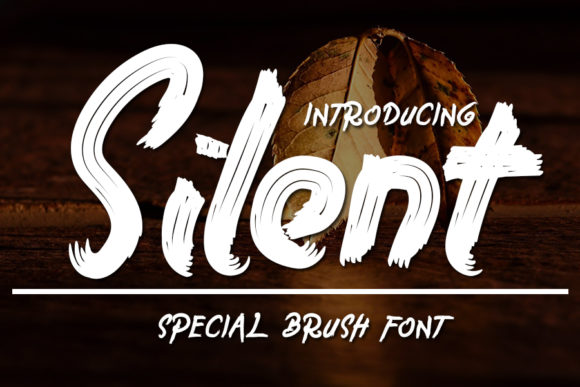
Prepare to be mesmerized by the enchanting Silent Font, a display masterpiece crafted to captivate your designs. Step into a world of elegance and impact, where every letter dances across the page, leaving an unforgettable mark.
With its alluring curves and undeniable style, Silent Font is the perfect choice for fashion branding and editorial endeavors. Its bold presence commands attention, while its readability ensures your message shines through. Imagine your brand name adorned in Silent Font, exuding confidence and leaving a lasting impression on your audience.
Unleash your creativity and let Silent Font elevate your designs to new heights. Its versatility knows no bounds, from captivating headlines to alluring posters. Experience the transformative power of this font and witness how it breathes life into your projects.
Don't settle for ordinary fonts that fade into the background. Embrace the captivatingé…力 presence of Silent Font and let your designs sing. This is not just a font; it's a statement of style and individuality.
Indulge in the enchanting world of Silent Font today and let your designs make a thunderous impact. Your brand deserves the best, and Silent Font is here to deliver. Join the font revolution and experience the power of true digital artistry.